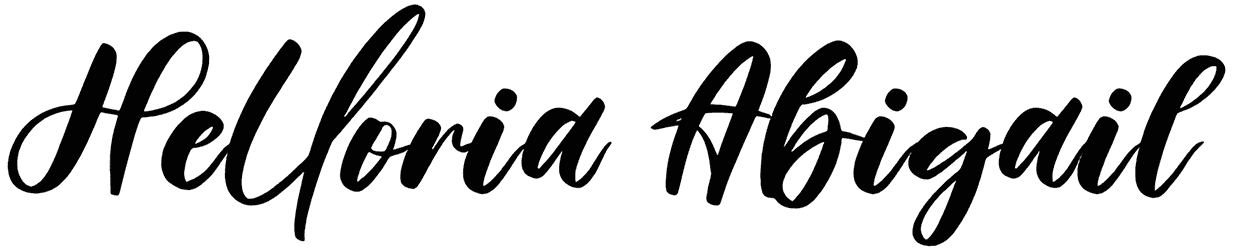
Helloria Abigail Font
The prominent point about Helloria Abigail is that it provides two distinctive styles for graphic artists and lets them add a bit of variety to all of their artwork. This cursive font carries a sense of jauntiness, delicacy, precision, and professionalism. Due to its sophisticated flow, it would look fabulous on book covers, magazines, packaging, logos, or branding.